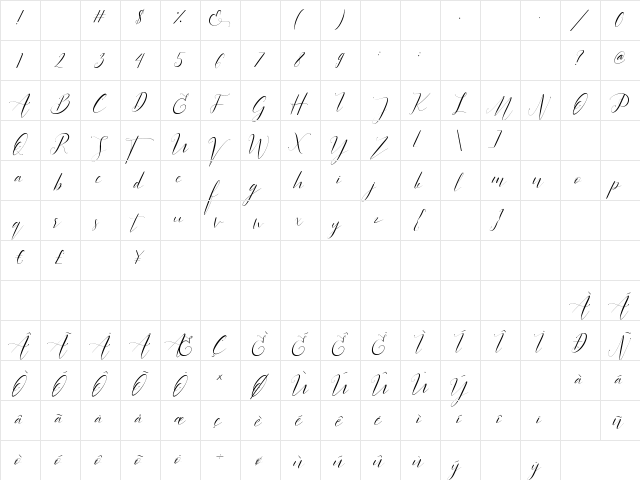
Sientta Script
| Style | Script |
| Designer | Ghazi Humam Fauzan |
Design Context for Sientta Typeface
Sientta flows with the natural rhythm of handwritten lettering, making it ideal for designs that call for warmth and personal expression.